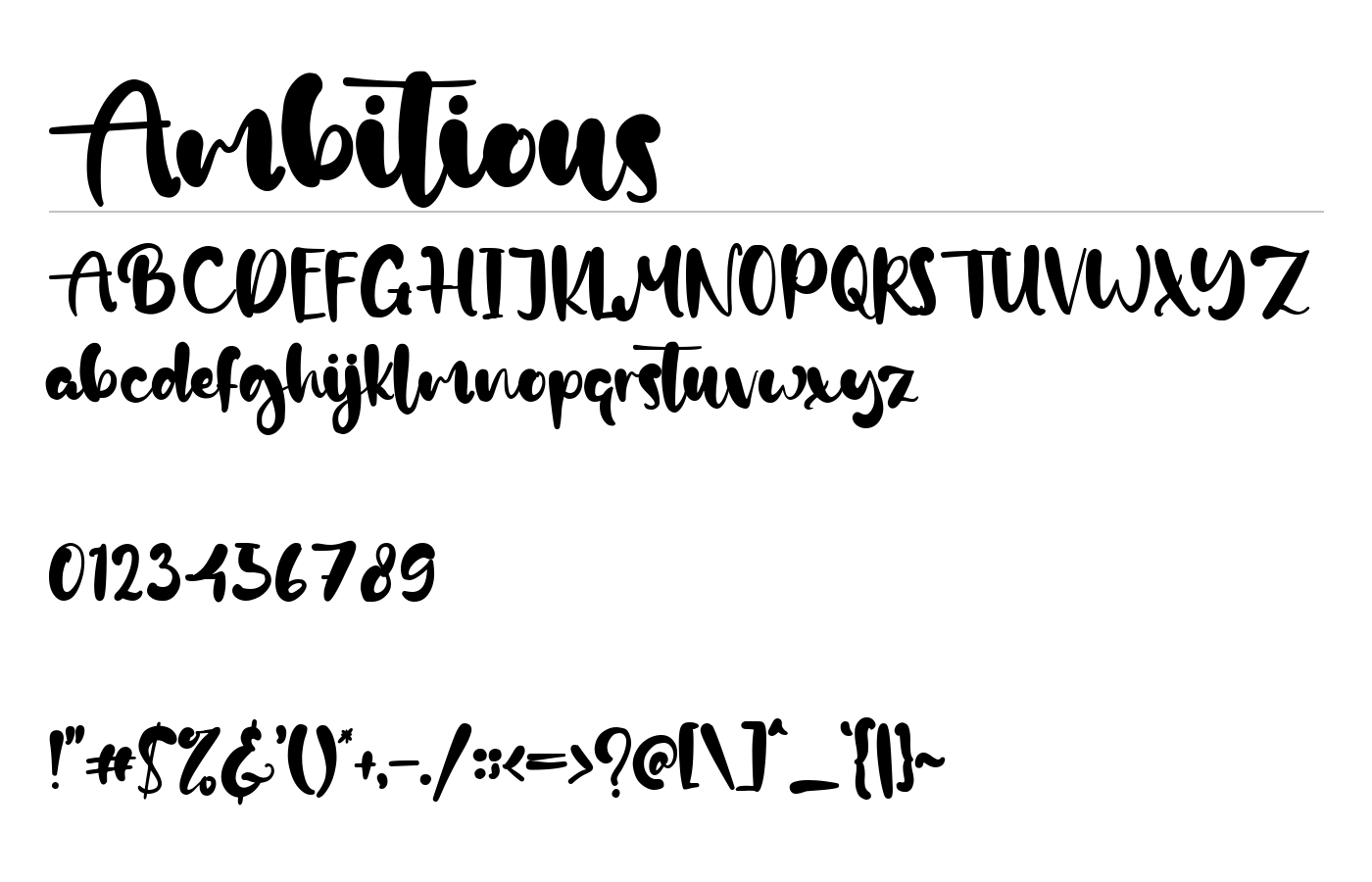
Ambitious is a lively and playful script font featuring bold, brush-like strokes with a casual, hand-drawn feel. Its moderately high x-height and smooth curves make it highly readable, while the uneven stroke widths add character and warmth. This font is ideal for creative projects, branding, and informal designs that seek to convey energy and friendliness.
Ambitious Font
About Ambitious Font
| Font family | Ambitious Font |
| Designer | Staircase Studio |